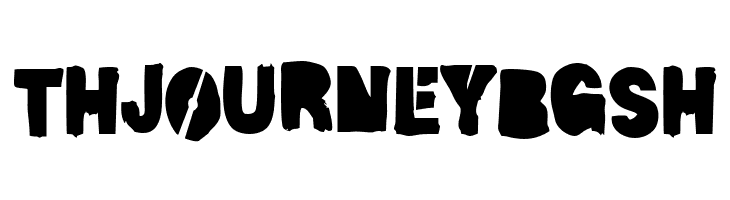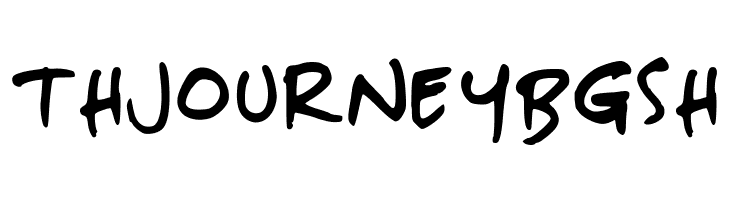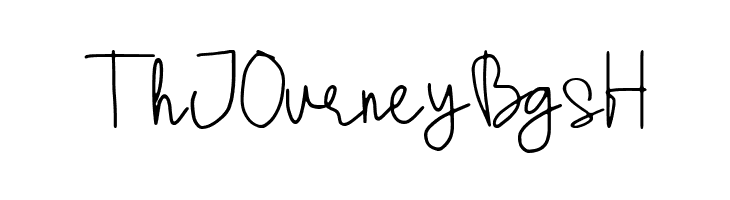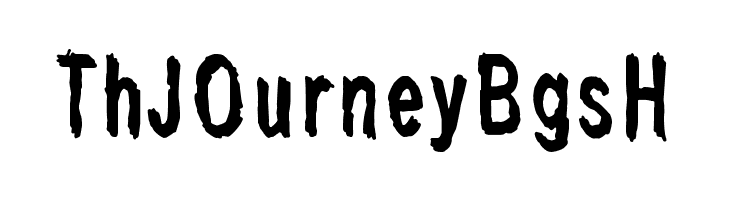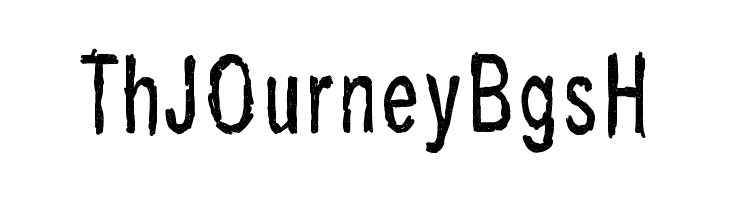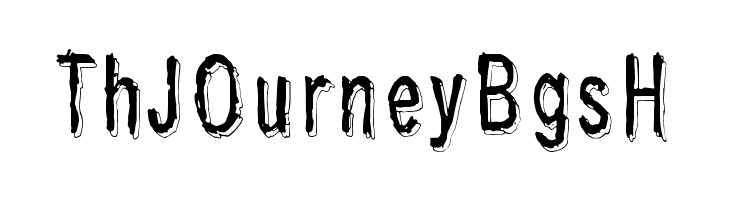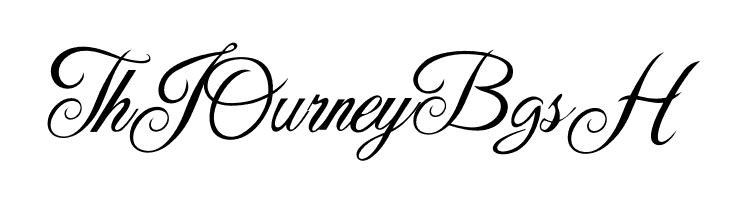
• Last living souls Dark
A bold, distressed font with a hand-drawn, edgy style.
• Last living souls Dark
A bold, hand-drawn font with a rugged, distressed style.
• Last living souls Dirty
A rugged, distressed font with a hand-stamped, textured appearance.
• Last living souls Dirty
A bold, distressed font with a rugged, hand-crafted appearance.
• Last living souls Shadow
A bold, hand-drawn font with a shadow effect and sketch-like quality.
• Last living souls Shadow
A bold, hand-drawn font with a shadow effect and sketch-like texture.
• Lavindir
A playful and casual handwritten font with flowing, irregular letterforms.
• Lawan
A bold, playful font with irregular, chunky characters and a whimsical style.
• Laylantia
An elegant script typeface with flowing, cursive letterforms and decorative swashes.
• Lazy Pumpkin Bold Italic
A bold, hand-drawn font with a playful, italic style.